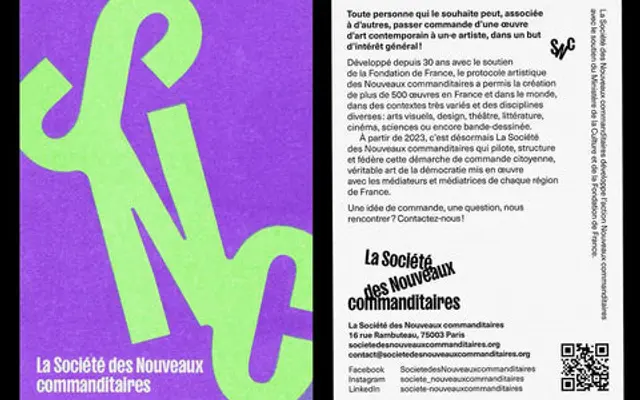
Sans Plomb
Lift Type · Maël Bächtold, Igino Marini, Manuel de Lignières · 2023
A grotesque family drawn from French road signs and 1980s automotive branding, with short ascenders, cropped diacritics and reversed inktraps giving it a distinctive period character.
Inspired by French petrol station signs, spare part brands and motorway typography of the 1980s, this 30-style family spreads across three widths — Condensed, Regular and Extended — each running from Light to Black with obliques throughout. Distinctive details include cropped diacritics, short ascenders and reversed inktraps, which collectively recall an era when roadside lettering was drawn with a cheerful technical imprecision. Stylistic sets, circled numbers and arrow glyphs reinforce its display-first personality.
A grotesque sans with quirky, period-specific details drawn from French road signage and automotive branding of the 1980s, including short ascenders, cropped diacritics and reversed inktraps.